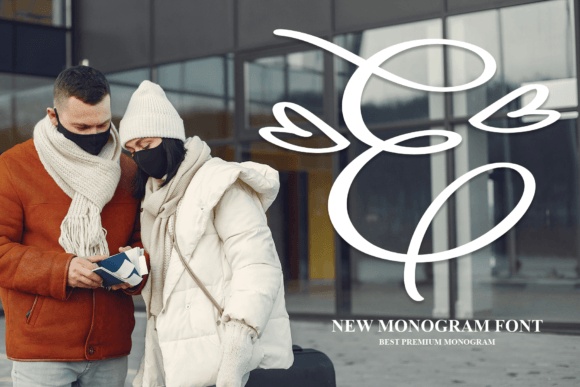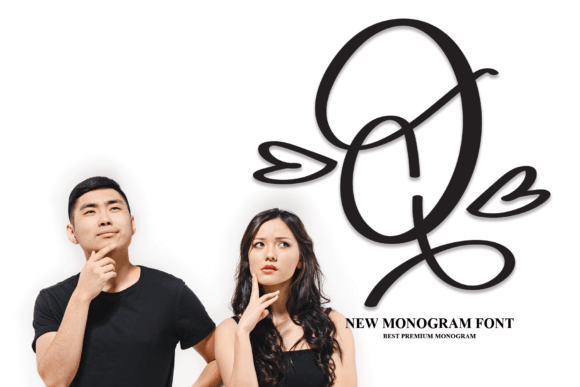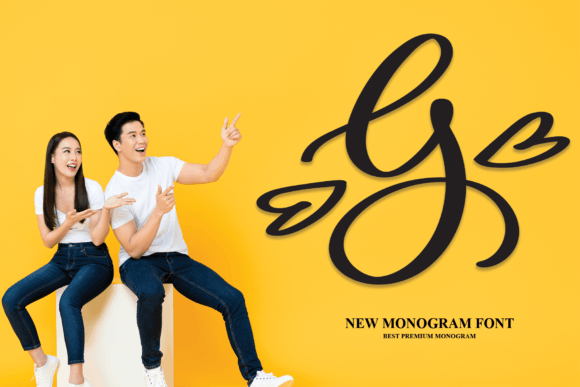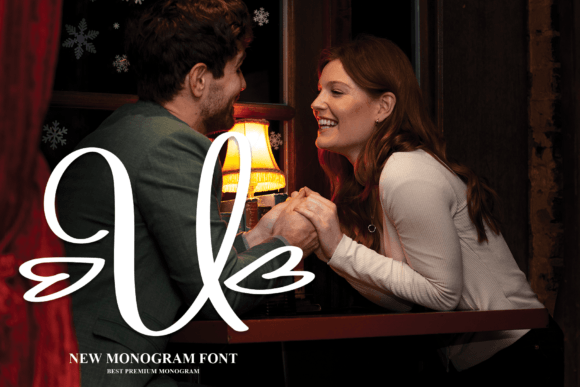
A Monogram Font: Elevate Your Designs with Elegance and Sophistication
In the world of typography, a monogram font is a timeless and versatile design element that can add a touch of elegance and sophistication to any project. A monogram is a fresh and highly detailed decorative font that can be used to create stunning visual effects in various design applications. In this article, we’ll explore the world of monogram fonts, their uses, and benefits, and provide tips on how to incorporate them into your designs.
What is a Monogram Font?
A monogram font is a type of decorative font that features a combination of letters, usually initials or a logo, intertwined or arranged in a unique and artistic way. Monogram fonts are often used to add a personal touch to designs, making them perfect for wedding invitations, love letters, branding, and packaging. A monogram font can be used to create a custom logo, header, or title that reflects the personality and style of your brand or project.
The Benefits of Using a Monogram Font
Adding a monogram font to your design can have numerous benefits. Here are a few:
- Elegance and Sophistication: A monogram font can instantly elevate your design, adding a touch of elegance and sophistication that sets it apart from others.
- Personalization: A monogram font allows you to add a personal touch to your design, making it more meaningful and unique.
- Versatility: Monogram fonts can be used in various design applications, from wedding invitations and love letters to branding and packaging.
- Creativity: A monogram font can be used to create stunning visual effects, from intricate patterns to beautiful ligatures.
Using A Monogram Font in Your Designs
A monogram font is a beautiful-looking font that can be used to add a touch of elegance and sophistication to any design. Here are a few ideas on how to use it:
- Wedding Invitations: Use a monogram font to create stunning wedding invitations that reflect the couple’s personality and style.
- Love Letters: Add a romantic touch to your love letters with a monogram font that makes them extra special.
- Branding and Packaging: Use a monogram font to create a custom logo or header that reflects your brand’s personality and style.
- Design Ideas: Experiment with different design ideas, such as using a monogram font to create intricate patterns or beautiful ligatures.
Tips for Working with Monogram Fonts
Here are a few tips to keep in mind when working with monogram fonts:
- Choose the Right Font Size: Experiment with different font sizes to find the perfect balance between elegance and readability.
- Pair with Other Fonts: Pair your monogram font with other fonts to create a unique and visually appealing combination.
- Keep it Simple: Don’t overcomplicate your design – sometimes, less is more.
A monogram font is a powerful design element that can add elegance, sophistication, and personality to any project. With its versatility, creativity, and personalization options, it’s no wonder that monogram fonts are a popular choice among designers and crafters. By following the tips and ideas outlined in this article, you can unlock the full potential of monogram fonts and take your designs to the next level.